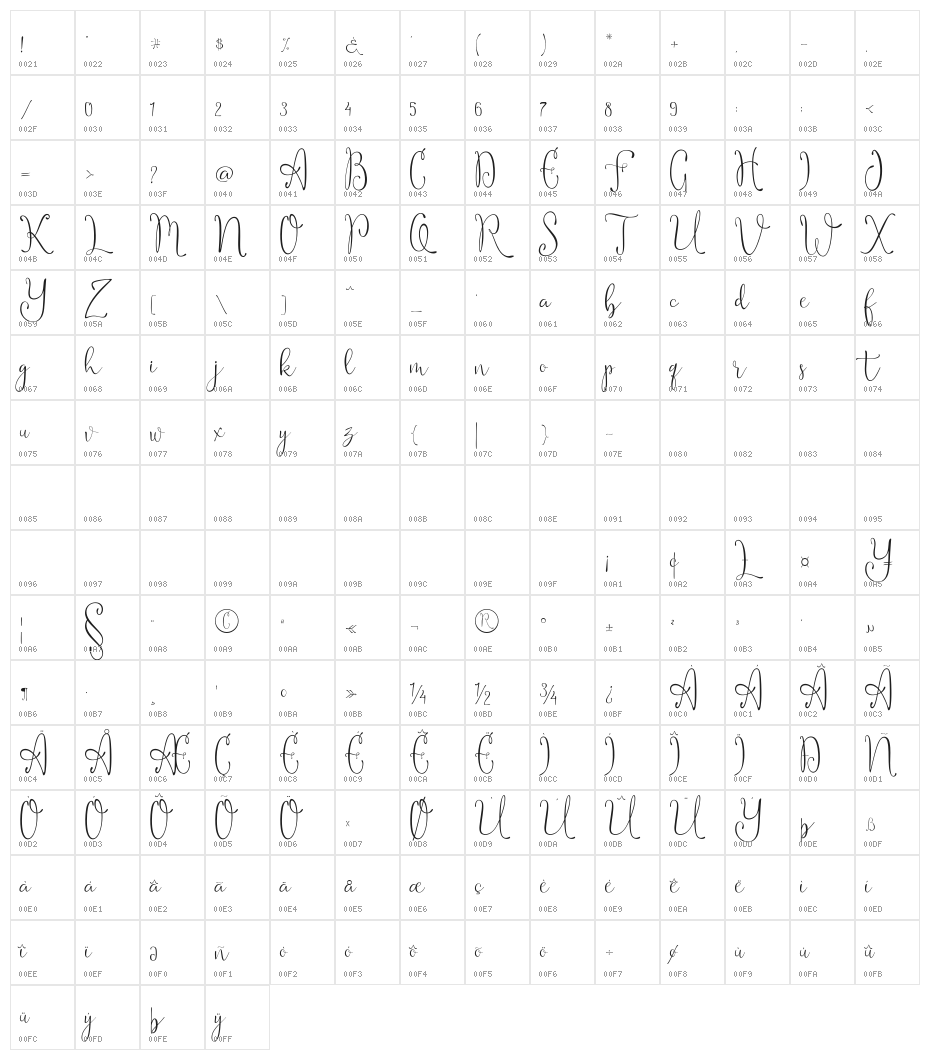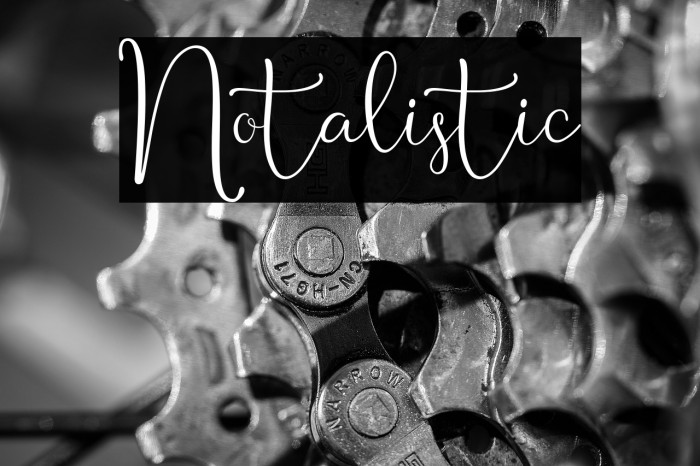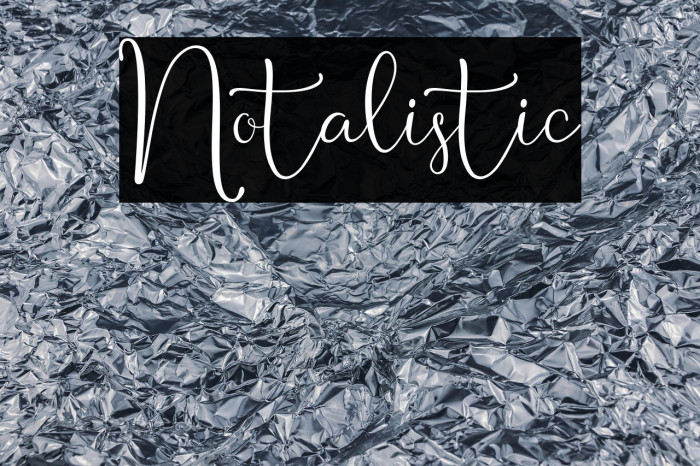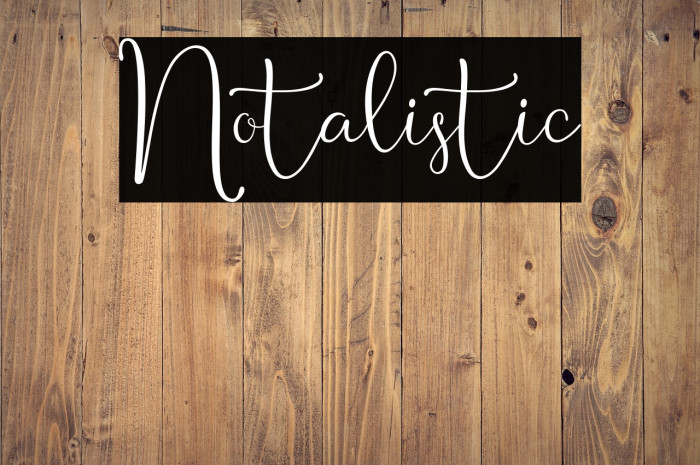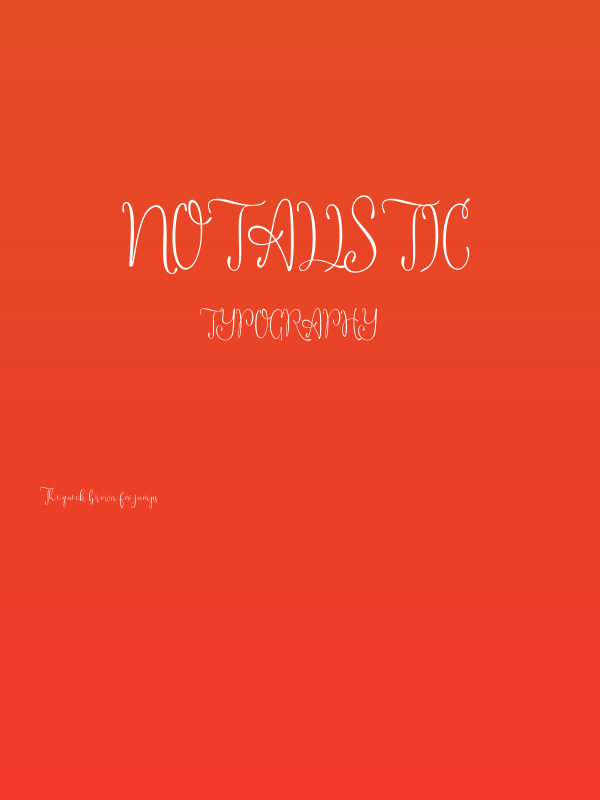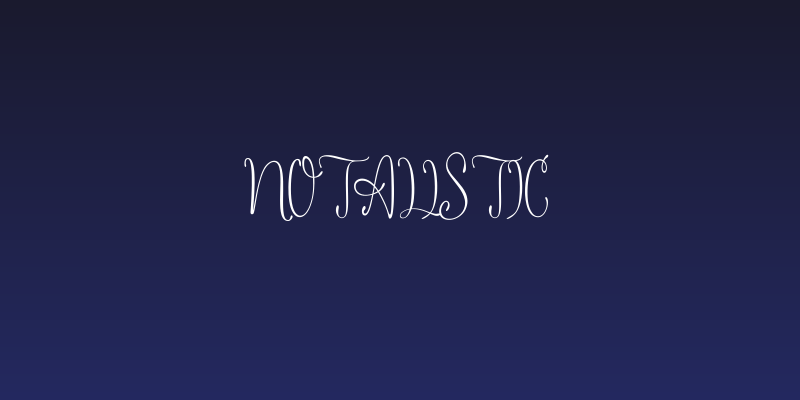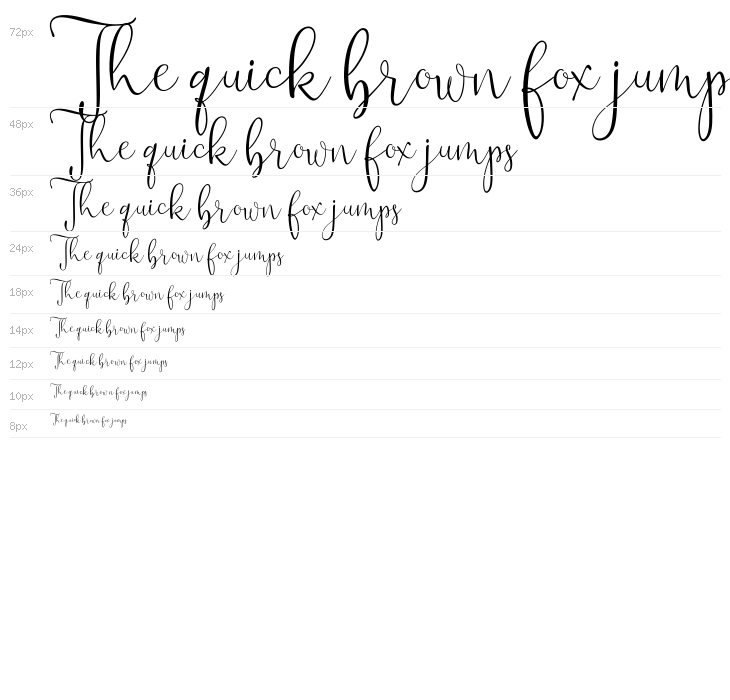
Notalistic Font
Notalistic Description
This font features a whimsical and artistic script style, characterized by its flowing, interconnected letters and playful loops. The uppercase letters are tall and elegant, with a distinct flair that adds a touch of sophistication. The lowercase letters maintain a consistent style, with some characters featuring unique swashes and curls that enhance the overall aesthetic. Numbers and special characters are designed to match the font's elegant and artistic theme, making it suitable for creative and decorative purposes. The font's thin strokes and high contrast give it a delicate appearance, while the generous spacing between characters ensures readability.